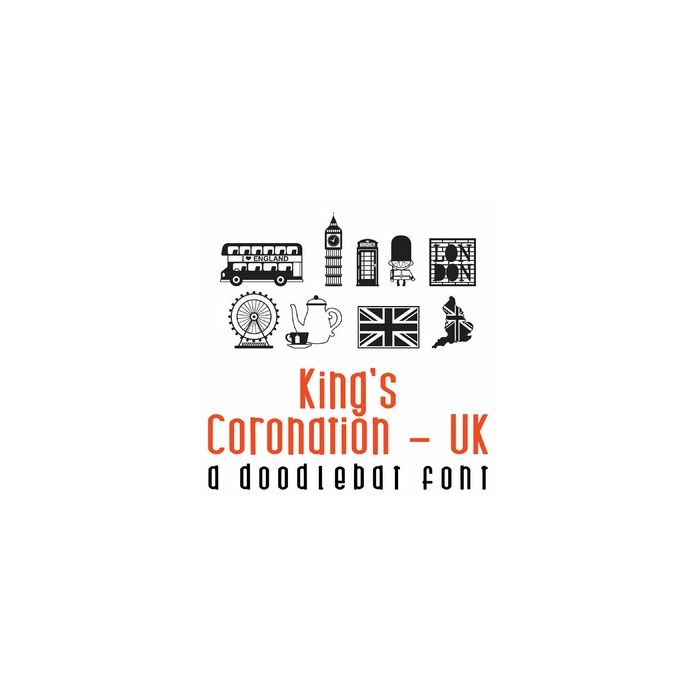
This fun doodlebat font features 26 characters and elements from the United Kingdom. Perfect for parties, gifts, decor, planner stickers,scrapbook pages and more!